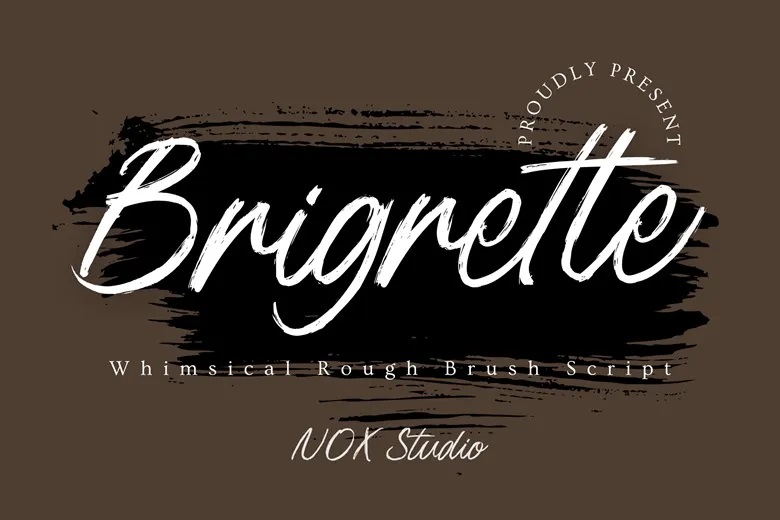
Brigrette Font
Brigrette is a handwritten, soft brush typeface with a cozy and warm feel. It is inspired by coffee moments, comforting vibes and everyday joy. It flows seamlessly with smooth strokes and proportionate curves.
It works elegantly for coffee branding, quotes, social media, logos, packaging, posts, invitations and lifestyle designs. Its friendly, personal, and timeless style offers a comforting touch to any craft.
Brigrette Brush Script Font